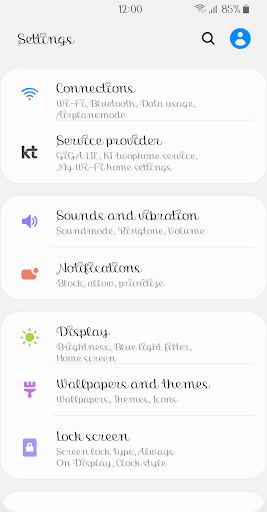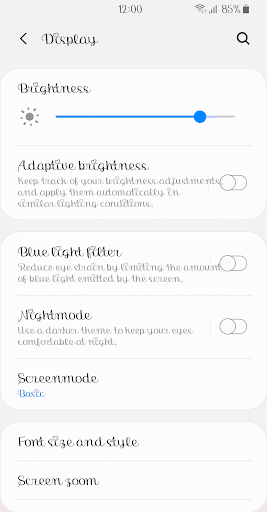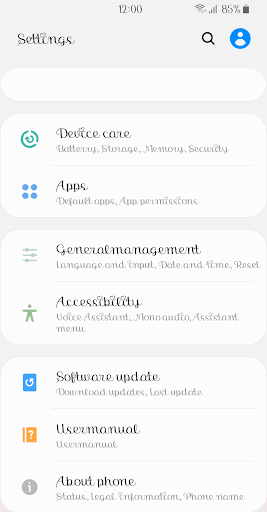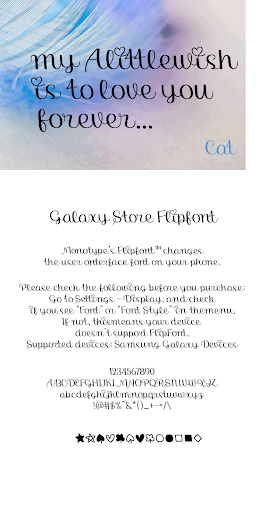
CatAlittleWish™ Latin Flipfont.
Happy and joyful font! This is CatFont.
This font is made with the hope that a little wish you hold in your heart will come true.
Lowercase i and j have lovely hearts.
rhythmic and stylish font.